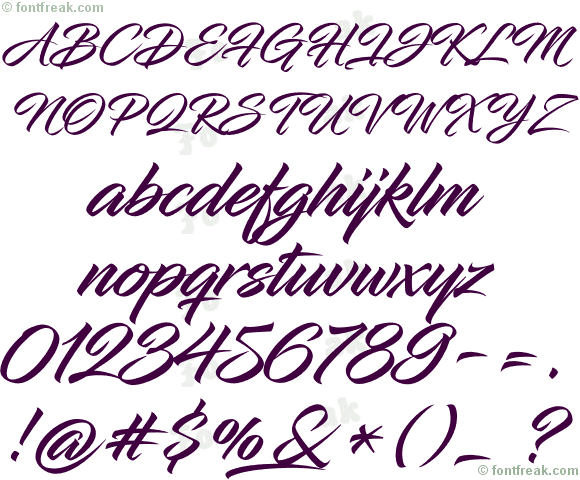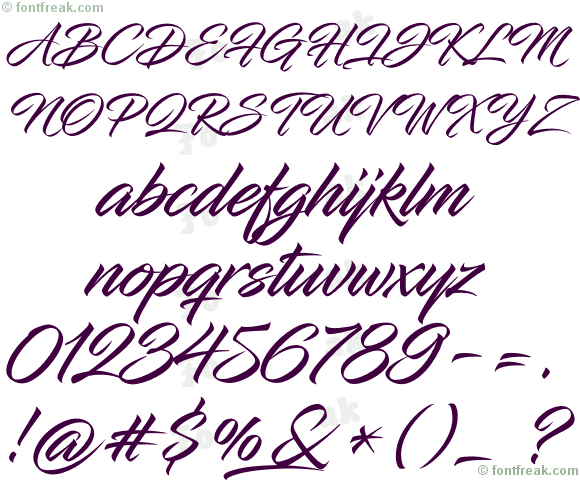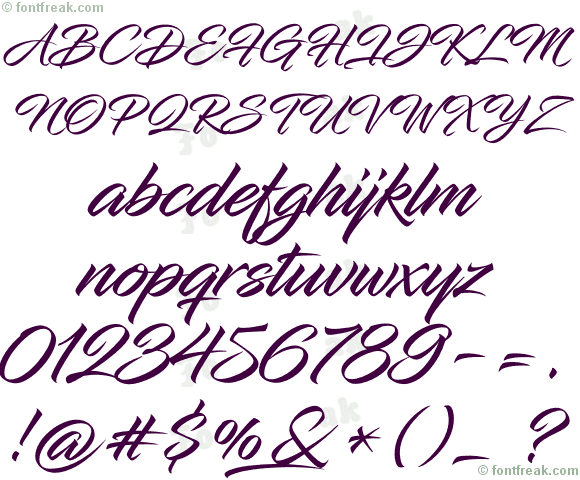
InfiniteStroke
About InfiniteStroke
InfiniteStroke, designed by Youssef Habchi in 2016, is a captivating display font that falls within the script category. This font showcases a unique blend of elegance and dynamism, characterized by its bolder, condensed strokes that create an impactful visual presence. The contrast between thick and thin lines adds depth, making it a striking choice for various design projects. The fluidity of the letterforms is enhanced by graceful curves and swashes, giving it a handwritten quality that feels both personal and artistic.
InfiniteStroke is particularly well-suited for a range of creative uses. It works beautifully for wedding invitations, where its stylish design can convey romance and elegance. Additionally, it can elevate movie posters, bringing a dramatic flair that captures the viewer's attention. Restaurant menus can benefit from its unique character, enticing diners with a sophisticated presentation. Furthermore, this font shines in branding materials, helping small business owners create memorable logos that stand out in a crowded market. Content creators will also find it a versatile choice for social media graphics and promotional materials.
What sets the InfiniteStroke font apart is its ability to blend artistic flair with practical usability. Its distinctive style adds a touch of sophistication to any project, allowing users to convey their message with both clarity and charm. Whether you're designing an elegant invite or a bold promotional poster, InfiniteStroke font free download provides an exceptional option to elevate your work to new heights.